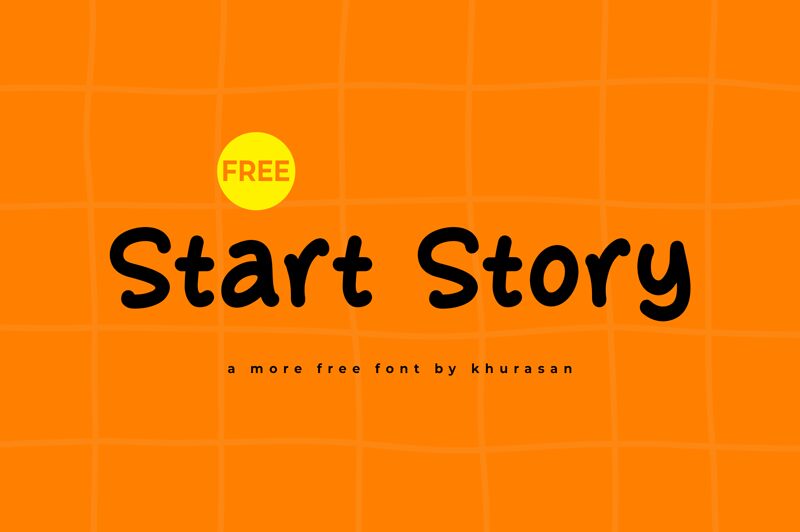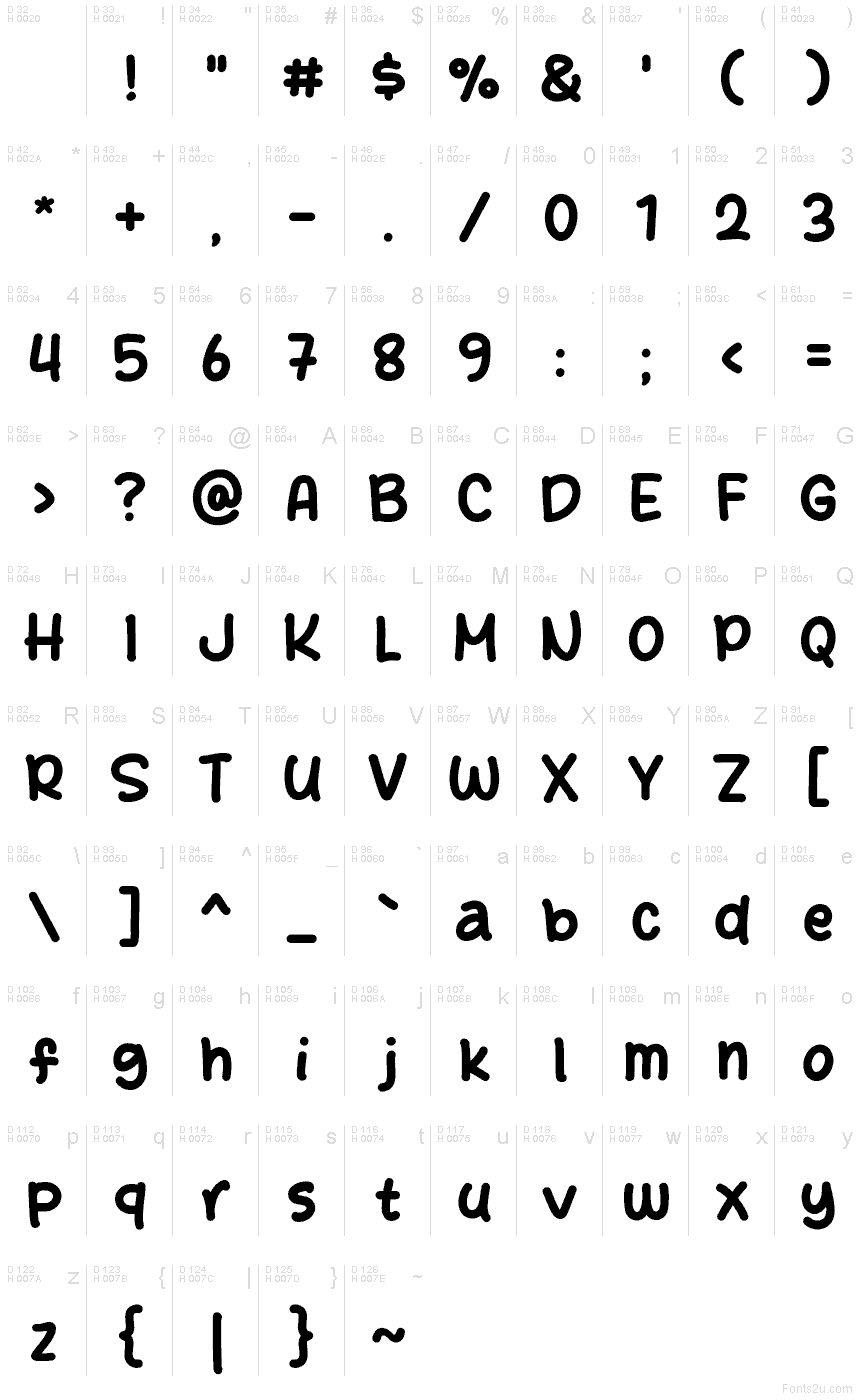
Start Story
Start Story font by Khurasan is a free handwritten typeface that solves the “cute but readable” dilemma. Its rounded, marshmallow-soft strokes feel warm and personal, yet the spacing stays steady, so lines don’t wobble or crowd. The letters hold a friendly heft—inky and cushioned—making headlines look inviting and small text surprisingly clear.
Using Start Story, you can bring charm to kids’ book covers, classroom printables, packaging for snacks or crafts, Instagram quotes, event flyers, and welcoming onboarding screens. The even rhythm keeps messaging clean while the bubbly texture adds heart. Pair it with a simple geometric sans for captions, and give it a touch of extra line spacing to let that soft shape breathe. This free font shines when clarity needs a smile.